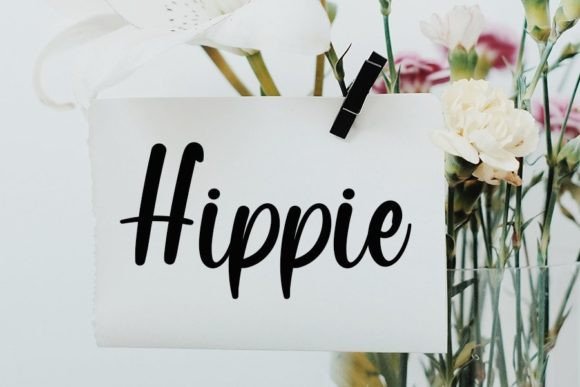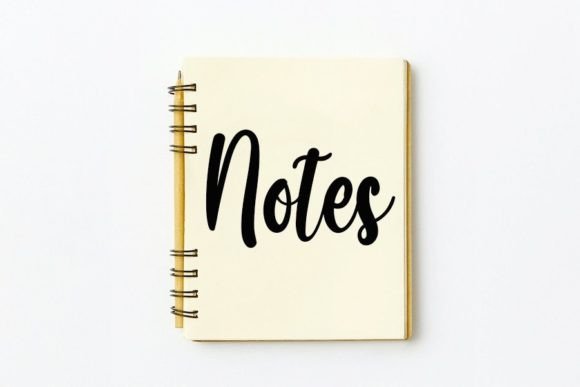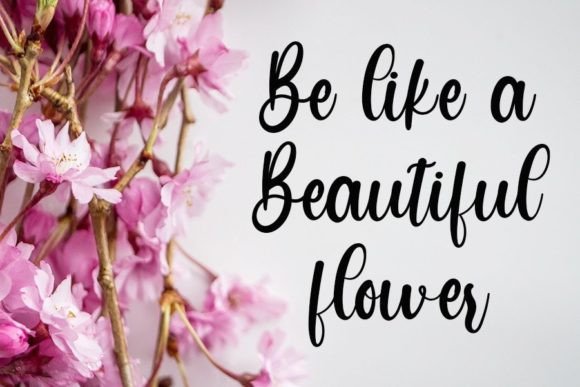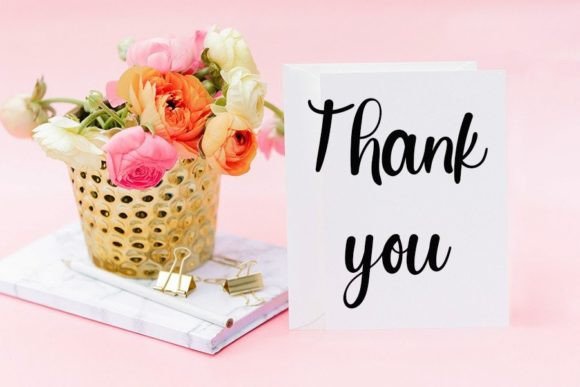
Discover the Timeless Beauty of Chicken Font
As designers, we’ve all been there – staring at a blank canvas, searching for the perfect font to bring our ideas to life. And then, it hits us – that moment of creative serendipity when everything falls into place. For me, it was the discovery of Chicken Font, a beautiful handwritten font that added an elegant touch to my design projects.
Chicken Font is more than just a font – it’s a statement piece that elevates any design to the next level. Its unique style and timeless charm make it perfect for a wide range of projects, from invitations to branding materials. Whether you’re a seasoned designer or just starting out, Chicken Font is a valuable addition to your toolkit.
Key Features of Chicken Font
- Font Family: Chicken Font is a unique, hand-drawn font family designed for various creative applications.
- Unique Characteristics: Chicken Font features a playful, hand-drawn style with irregularities and imperfections, adding a personal touch to designs.
Designer Review: Chicken Font
Overall, I have mixed feelings about the “Chicken Font”. There are some aspects that shine, while others leave room for improvement.
- Unique style: The font’s quirky and playful design makes it stand out from more traditional fonts.
- Customizability: The font’s many variations and styles offer a lot of creative freedom for designers.
- Fun and whimsical: The font’s personality is infectious and can add a touch of humor to any design project.
- Lack of legibility: The font’s unique style can sometimes make it difficult to read, especially in smaller sizes.
- Overuse: The font’s playful nature can make it feel overused or cliché if not used carefully.
While the “Chicken Font” has its charm, I wouldn’t recommend it for every project. Its unique style and customizability make it a great choice for playful or humorous designs, but its limitations and lack of technical support make it less suitable for more serious or complex projects.
- Using it for headings and titles to add a playful touch.
- Combining it with other fonts for a unique and eye-catching design.
- Using it for social media graphics and advertisements to add a fun and casual feel.